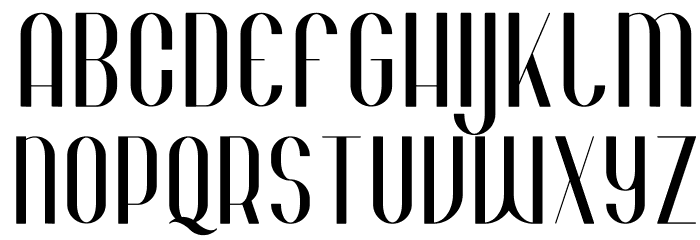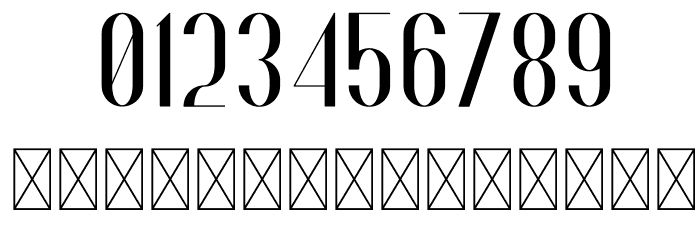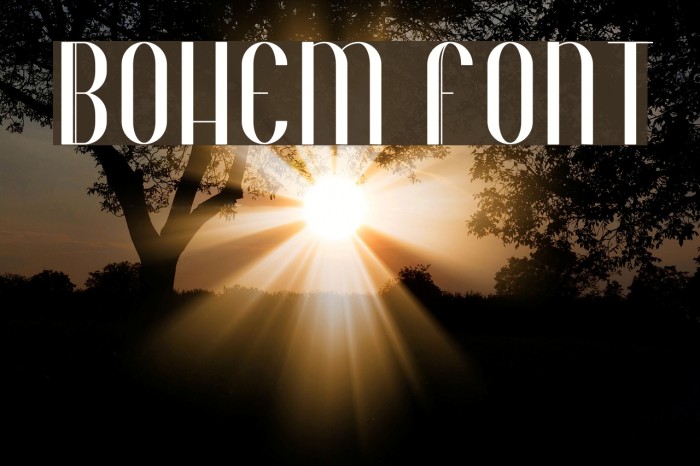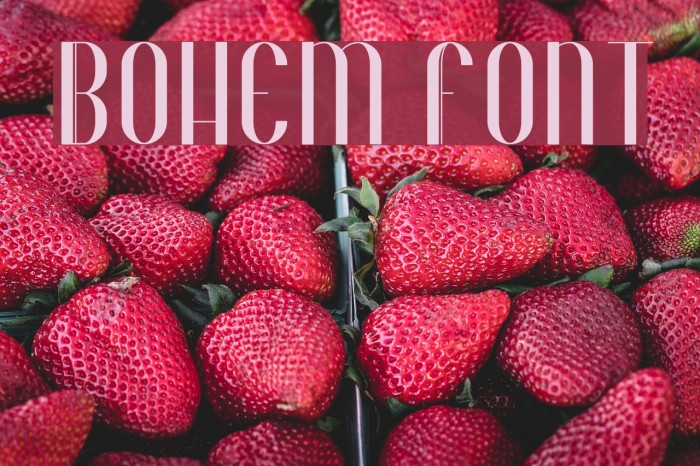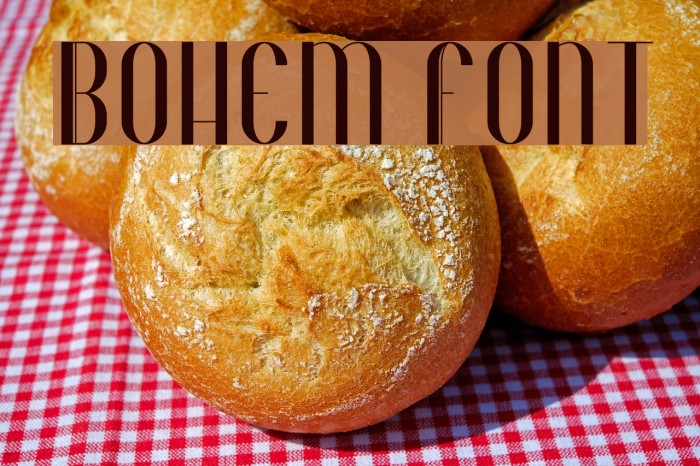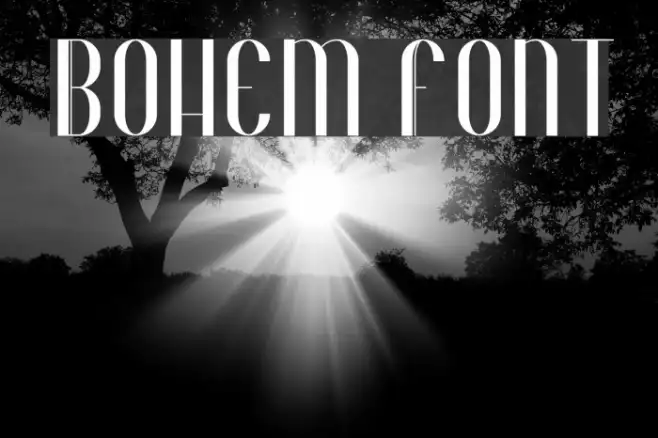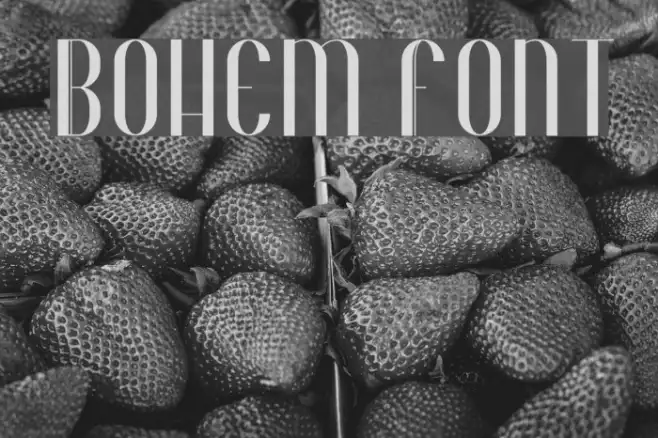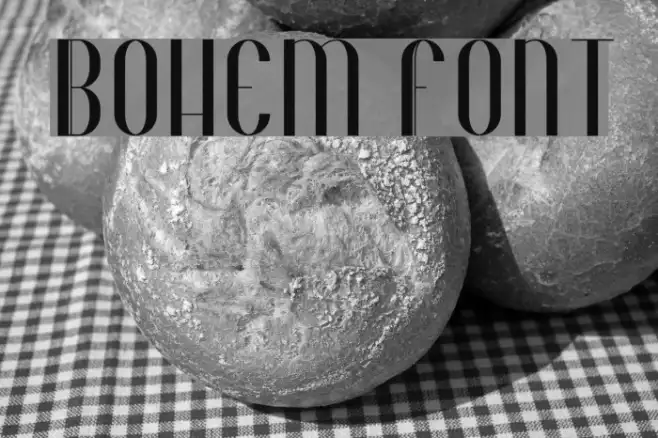
Bohem Font
This font features a unique blend of modern and vintage styles, characterized by its tall, narrow letterforms and high contrast between thick and thin strokes. The uppercase letters exhibit a sophisticated elegance with elongated verticals and subtle curves, while the lowercase letters maintain a consistent rhythm and balance. The numerals follow the same design principles, ensuring a cohesive look across all characters. The special characters are thoughtfully designed to complement the overall aesthetic, making this font suitable for a variety of creative applications.
A modern vintage font with tall, narrow letterforms and high contrast strokes.
- Proposed Projects: Ideal for luxury branding, editorial design, fashion magazines, and elegant invitations.
- Overall Style: Modern, Vintage